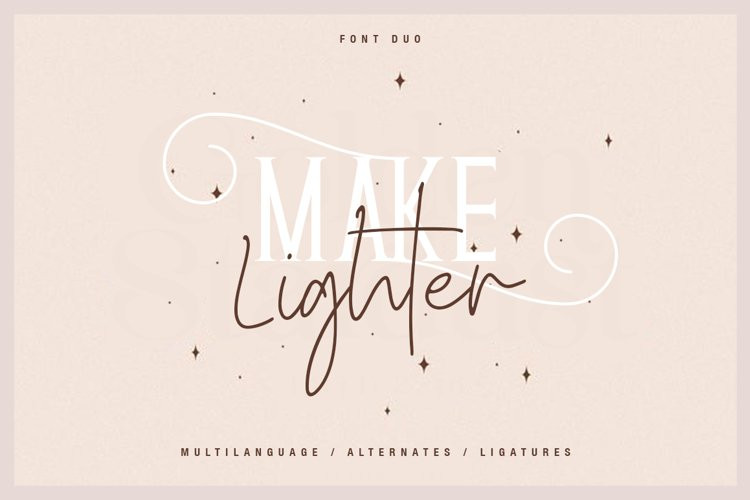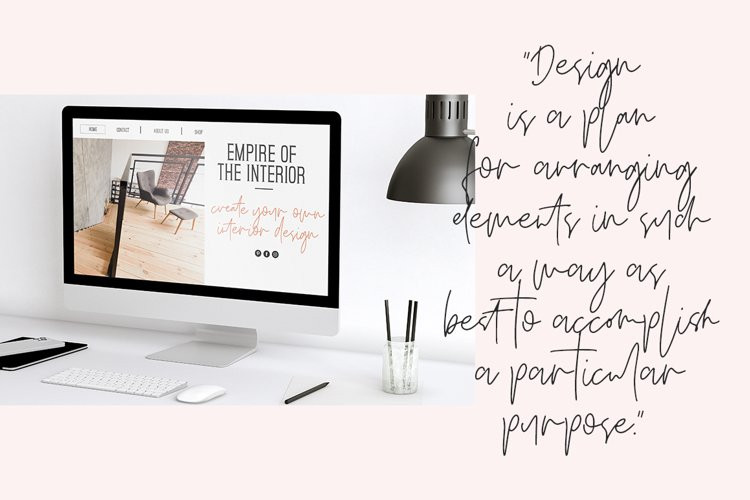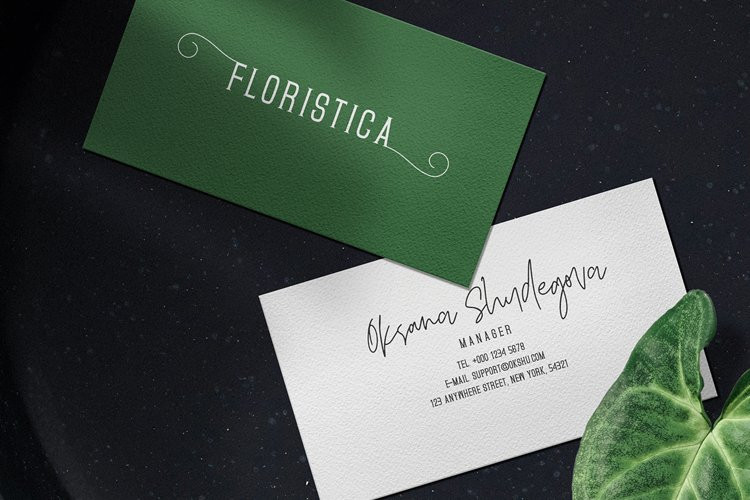
Make Lighter Duo Font
Make Lighter Duo FontMake Lighter FONT DUO – a new fresh handmade calligraphy font.
Very suitable for greeting cards, branding materials, business cards, quotes, posters, and more!This font are perfect for wedding postcard. Or you can create perfect and unique design of your logo, blog, stationery, marketing, magazines and more